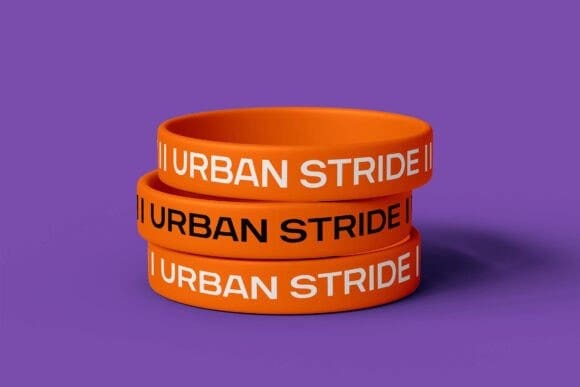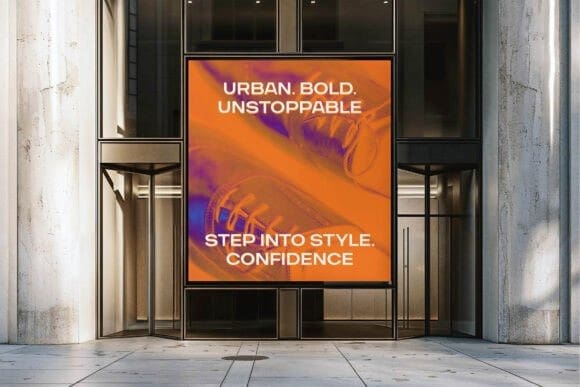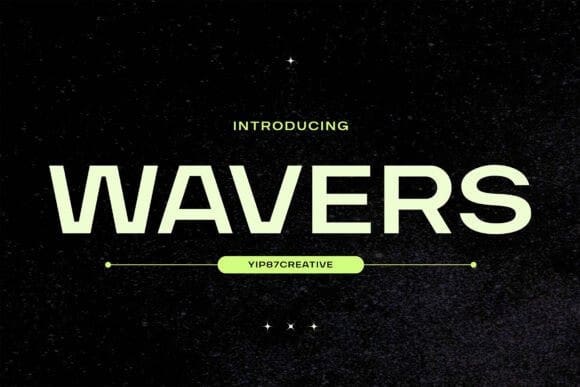
Wavers Font
Wavers Font is a bold and assertive serif font. No matter the topic, this font will be an incredible asset to your fonts’ library, as it has the potential to elevate any creation.